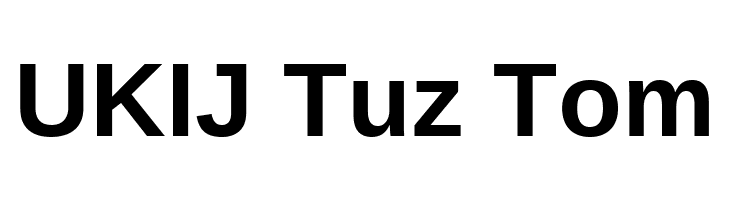
A bold, modern sans-serif font with clean lines and balanced proportions.
A modern, clean sans-serif font with excellent readability and uniform design.